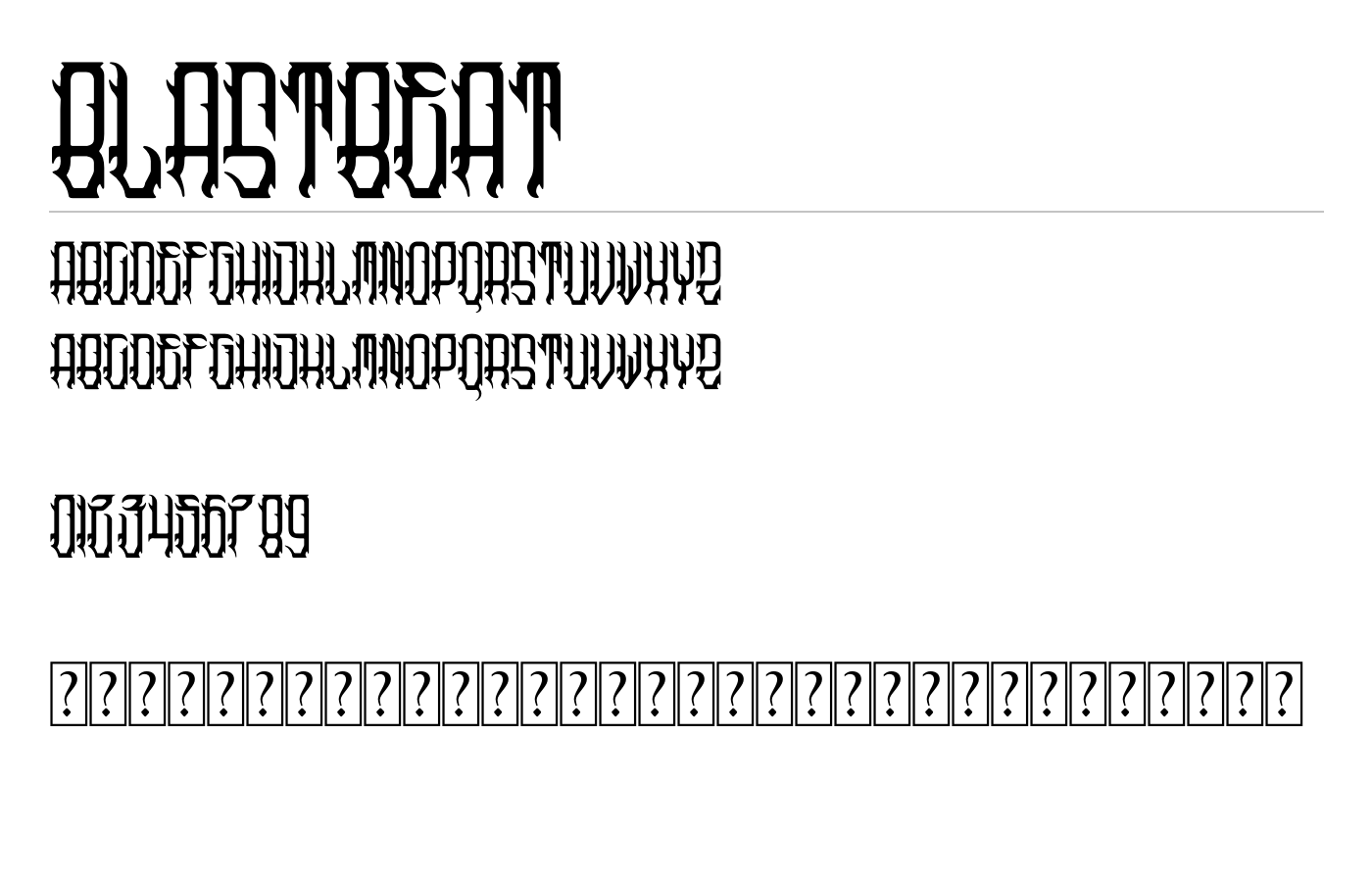
BLASTBEAT is a bold, condensed serif font with a gothic, heavy-metal vibe, featuring sharp, geometric strokes and high contrast. Its dramatic, ornamental letterforms convey a dark, intense personality perfect for edgy branding, posters, and album covers. This font shines in display use where strong visual impact and a rebellious style are needed.
BLASTBEAT Font
About BLASTBEAT Font
| Font family | BLASTBEAT Font |
| Designer | Sigit Saputro |